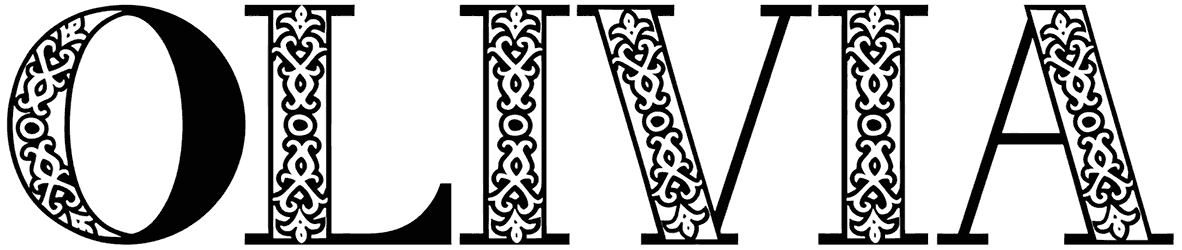
Decorative Olivia Font
Decorative Olivia font feels like one of those charming display fonts made for designs that need a little sweetness without turning childish. The letters have a soft decorative personality, playful enough to make a headline feel welcoming, but still neat enough to keep the whole layout looking intentional.
Use it for bakery logos, cute packaging, greeting cards, boutique tags, craft fair posters, kids’ party invites, or social media quotes that need a friendly spark. Pair this decorative font with pastel palettes, hand-drawn flowers, paper textures, or simple doodle icons, and your design starts feeling personal, warm, and happily handmade.